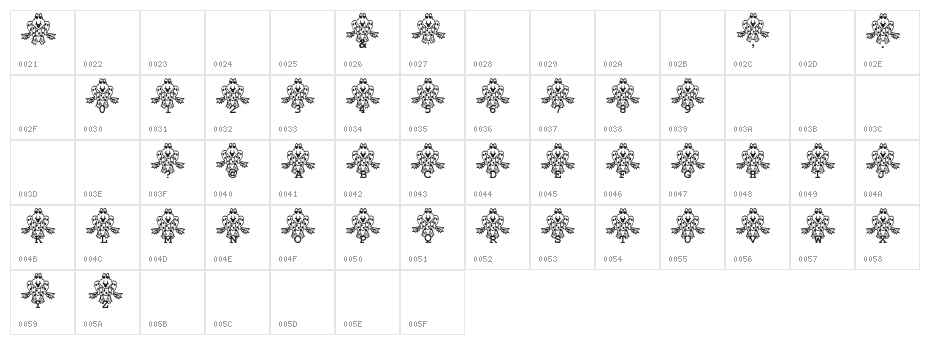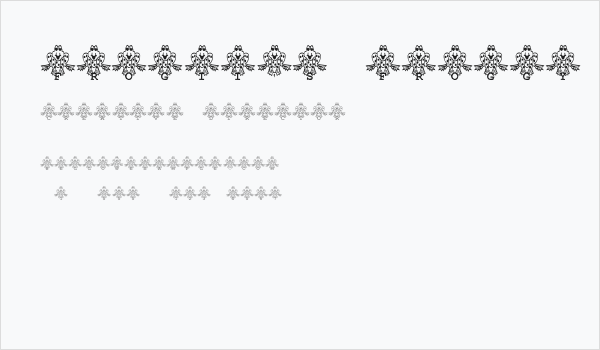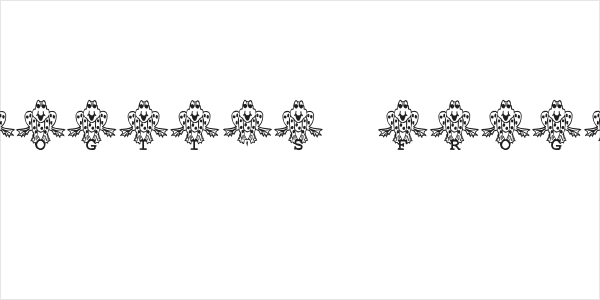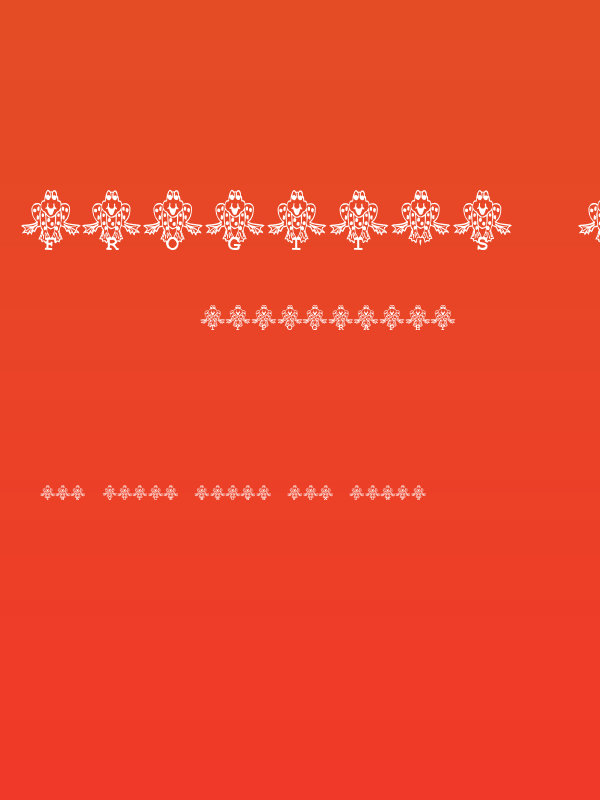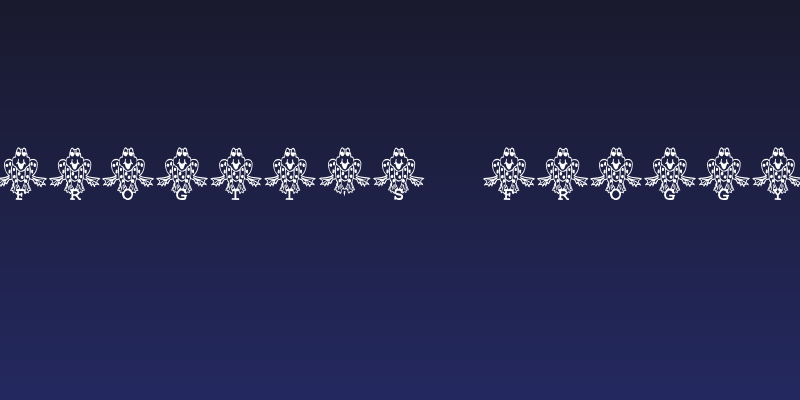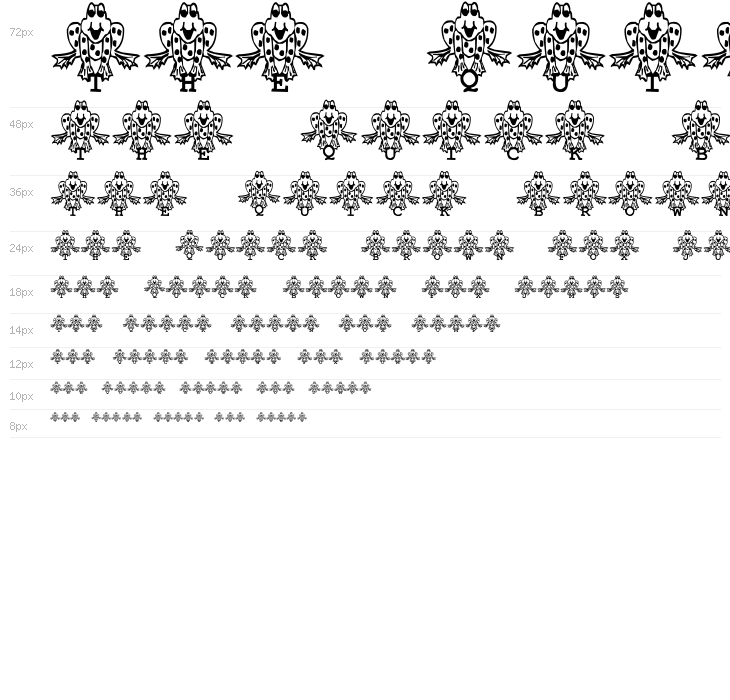
Frogii's Froggy Font
Frogii's Froggy Description
This font features a whimsical and playful design where each character is integrated into a cartoonish frog illustration. The letters and numbers are centrally placed within the frog's body, creating a unique and decorative appearance. The style is highly illustrative, making it more suitable for creative and informal contexts. The characters are consistent in their playful theme, providing a cohesive look across the alphabet and numerals. This font is not intended for readability in large blocks of text but rather for decorative purposes where a fun and quirky aesthetic is desired.
| Proposed Projects | Ideal for children's book covers, playful invitations, greeting cards, and themed party decorations. |